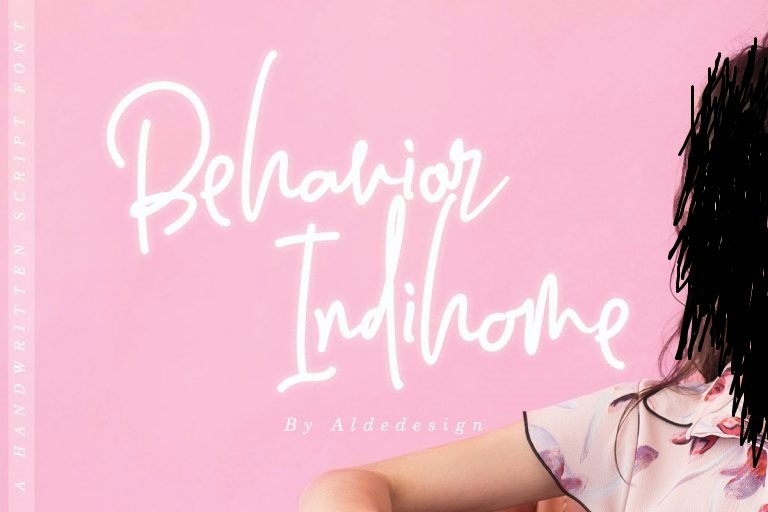
Behavior Indihome Signature Font
Introducing Behavior Indihome Font. A new fresh handmade signature typeface by Aldedesign. BehaviorIndihome is a font with awesome and classy taste, comes with natural touch, so much ligatures. We keep this font looks classy, readable, elegant, stylish, catchy and absolutly easy to use.
BehaviorIndihome is the great choice for watermark on branding, design, wedding, photography, signature, logo design, album cover, business card, quotes, and many other design project.